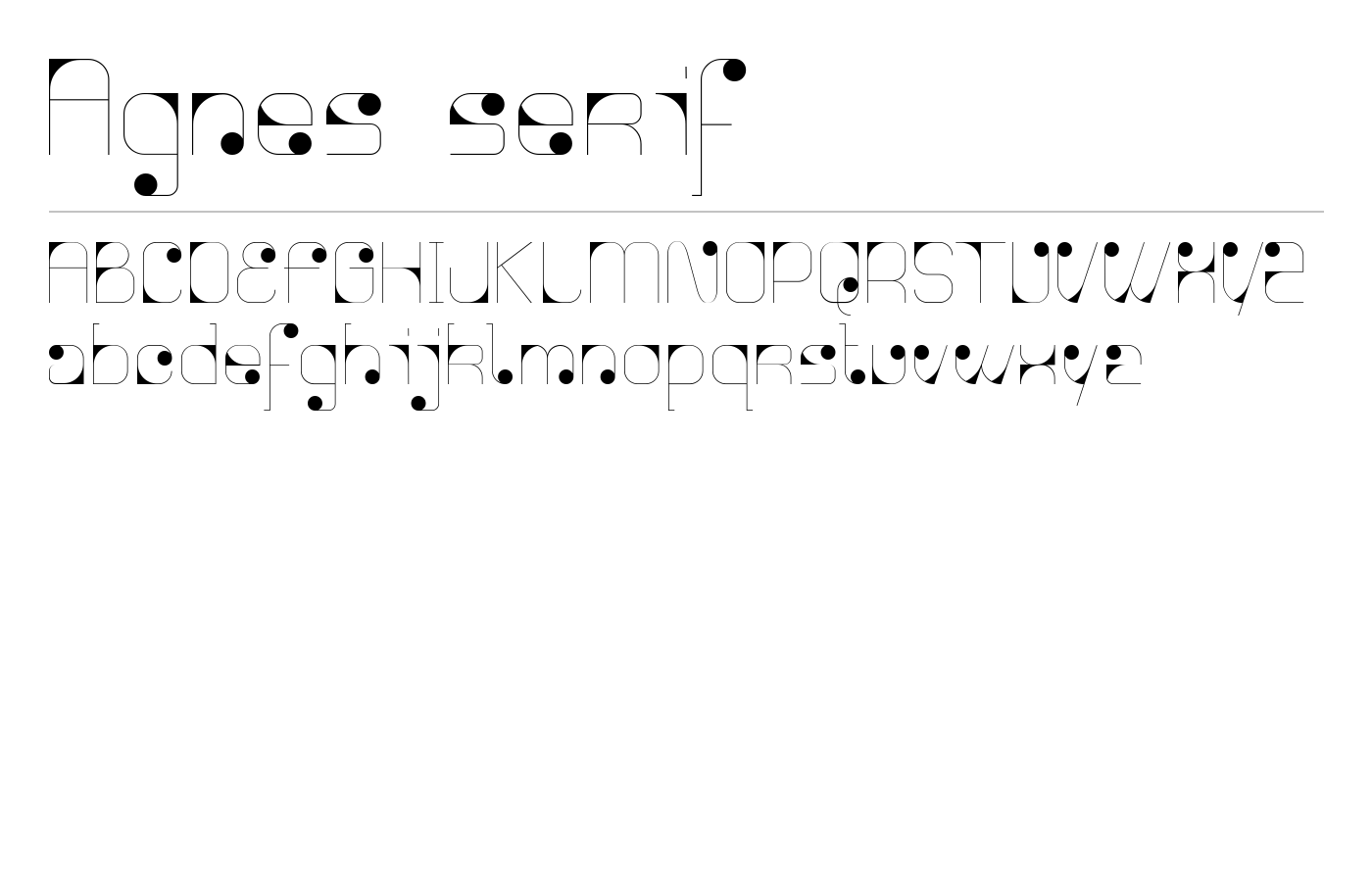
Agnes Serif is a unique and modern serif font characterized by its extremely thin strokes combined with bold, rounded terminals that create a striking contrast. Its delicate, geometric letterforms convey a futuristic and artistic vibe, making it ideal for creative branding, editorial headlines, and contemporary design projects where a stylish, avant-garde feel is desired. This font works best in display settings where its intricate details can be appreciated without compromising readability.
Agnes serif Font
About Agnes serif Font
| Font family | Agnes serif Font |
| Designer | Benot Sjholm |